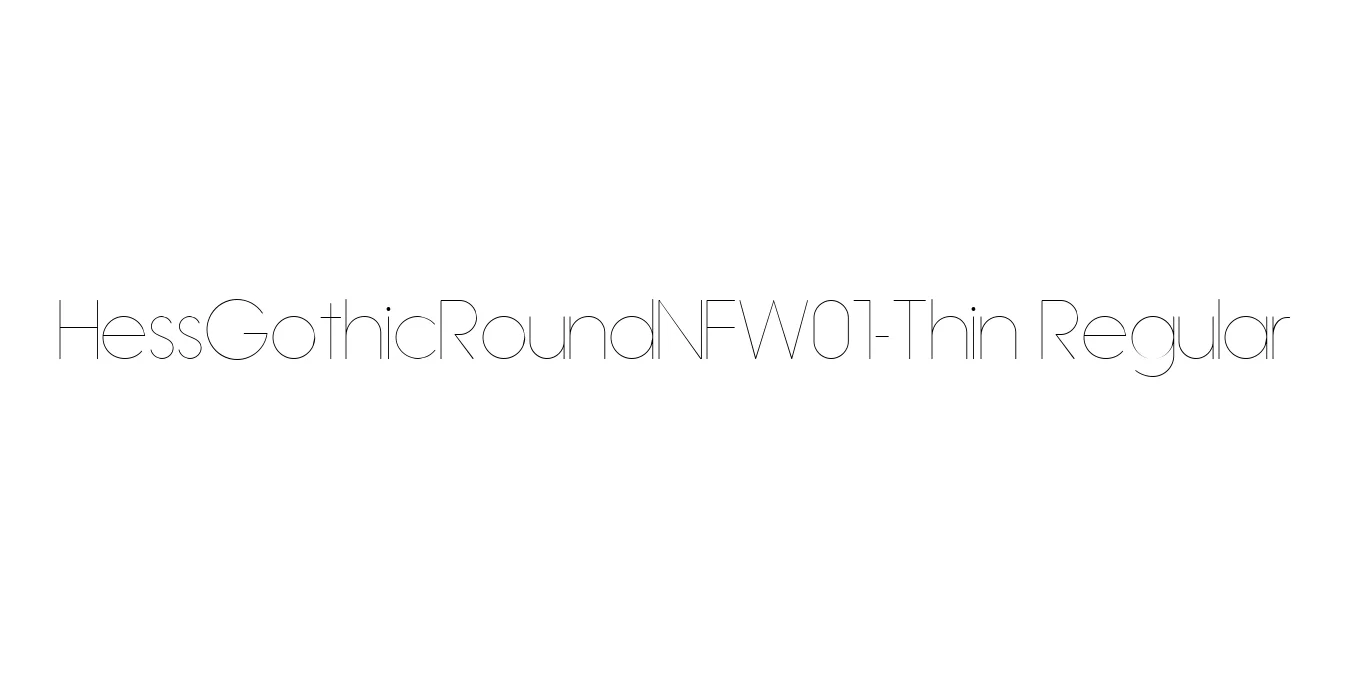
HessGothicRoundNFW01-Thin Regular
Designed by Nick Curtis
HessGothicRoundNFW01-Thin Regular is a sophisticated digital revival by designer Nick Curtis, drawing inspiration from the original Gothic Round typeface designed by Sol Hess for the Lanston Monotype Company. This font captures the essence of early 20th-century geometric design while introducing a modern, softened aesthetic through its perfectly rounded terminals. The Thin weight, in particular, offers a delicate and ethereal presence, making it an excellent choice for designers seeking a balance between industrial structure and friendly accessibility.
The typeface is characterized by its consistent stroke weight and clean, open counters, which ensure high legibility in various display contexts. As part of the Nick's Fonts collection, this iteration preserves the historical integrity of Sol Hess's work while optimizing the curves for high-resolution digital screens and modern printing techniques. Its minimalist silhouette and refined proportions make it a timeless addition to any typographic library, suitable for projects that require a touch of understated elegance and geometric precision.
HessGothicRoundNFW01-Thin Regular Best Uses
Ideal for creating clean, modern logos and high-end corporate identities.
Perfect for thin, elegant headlines in fashion or lifestyle magazines.
Excellent for minimalist hero sections and sophisticated navigation menus.
Great for luxury invitations, business cards, and thin-line decorative text.